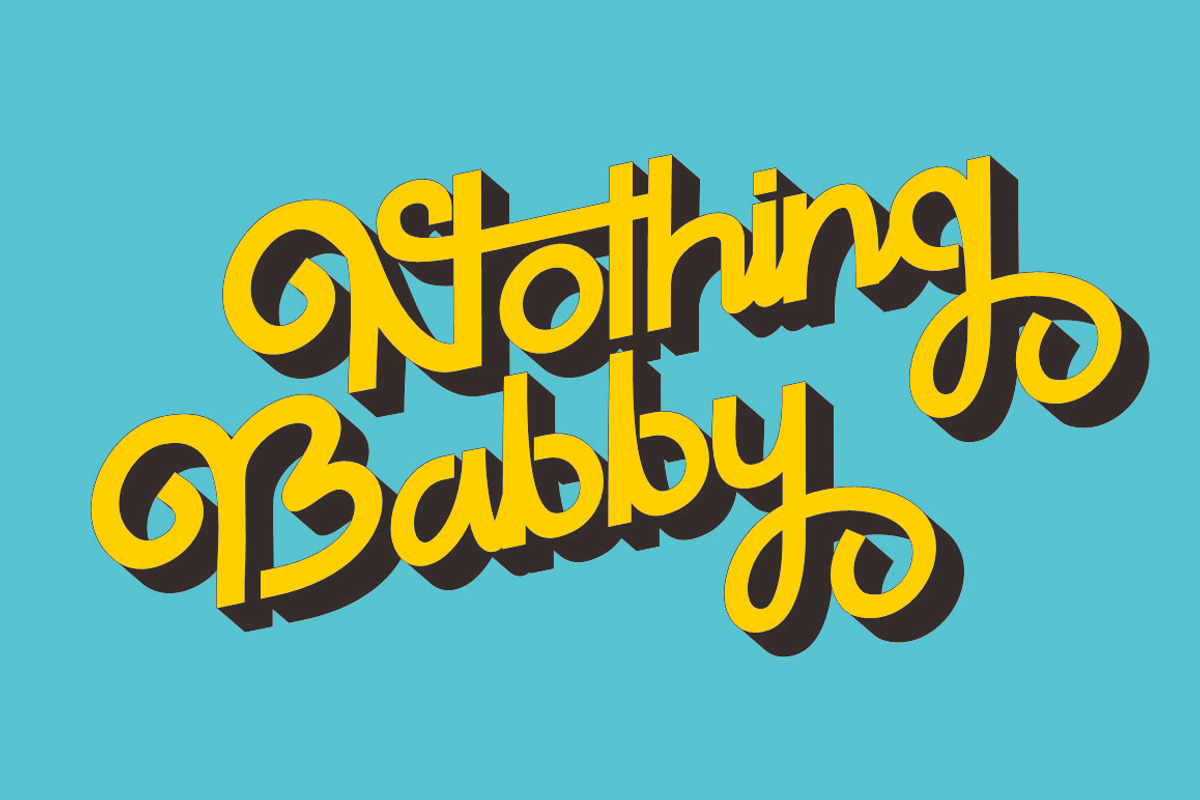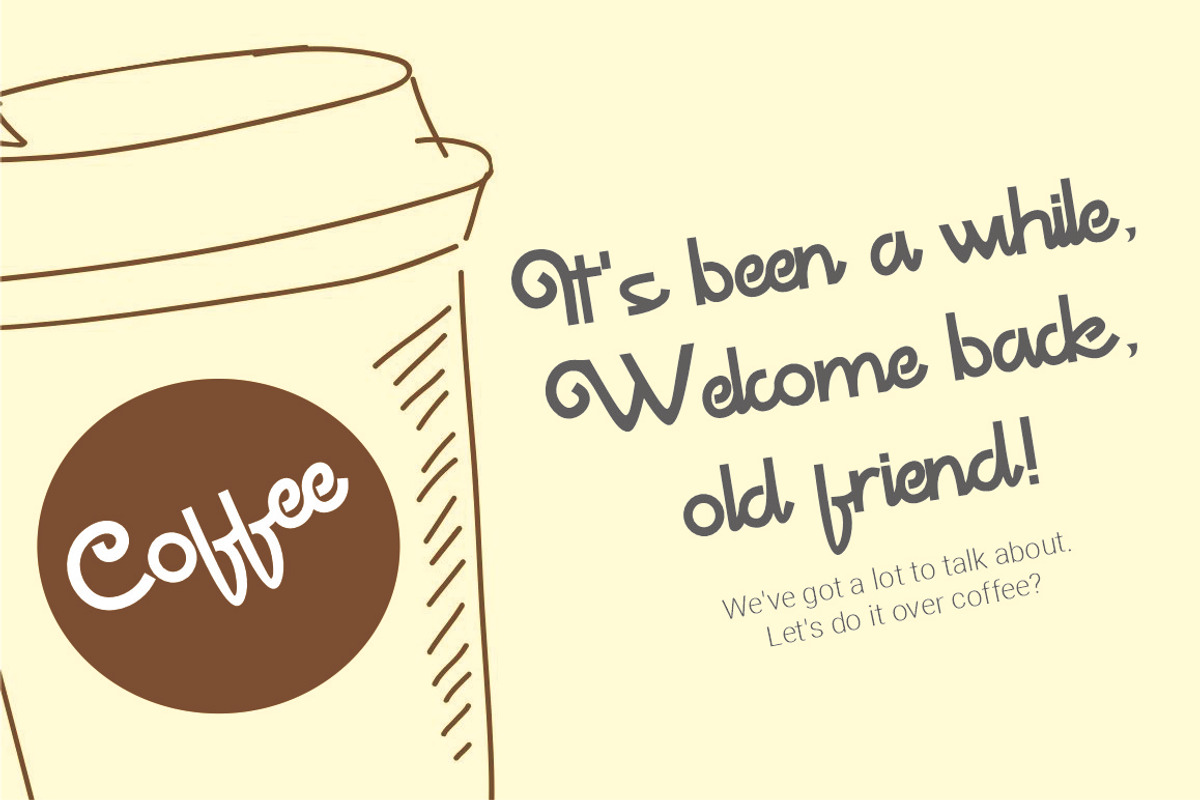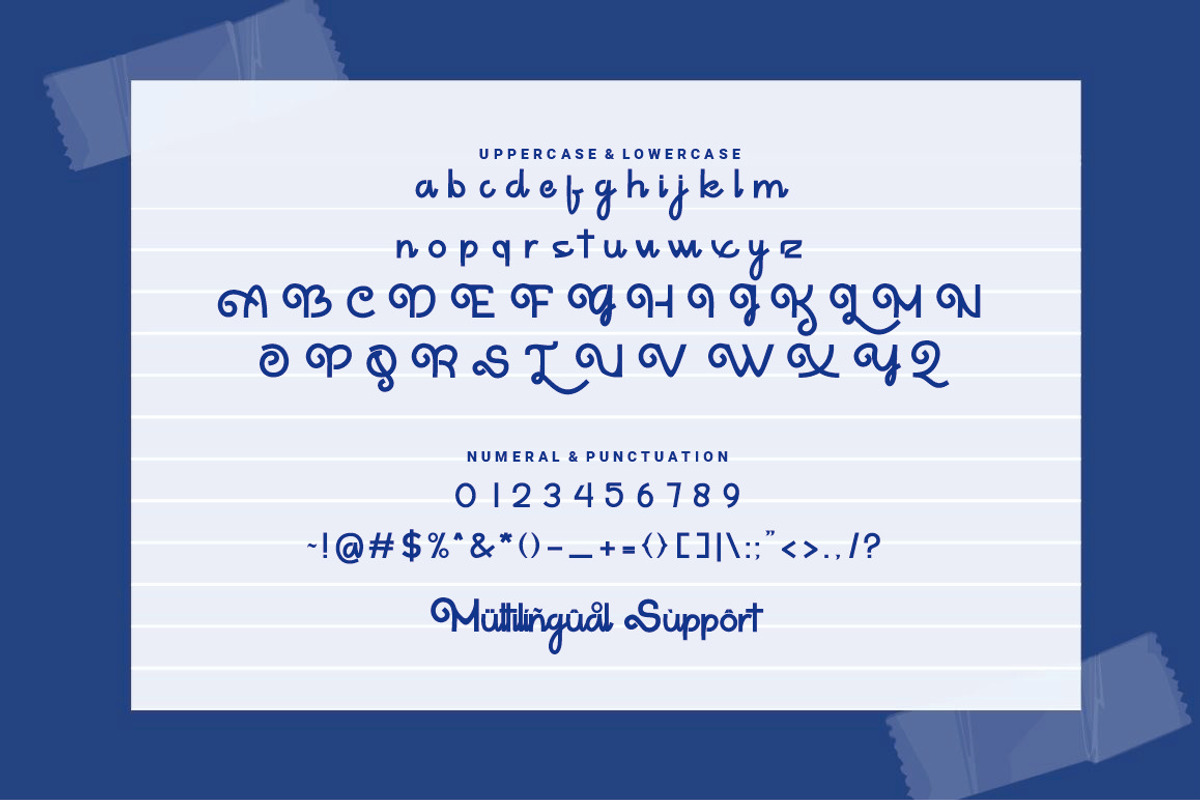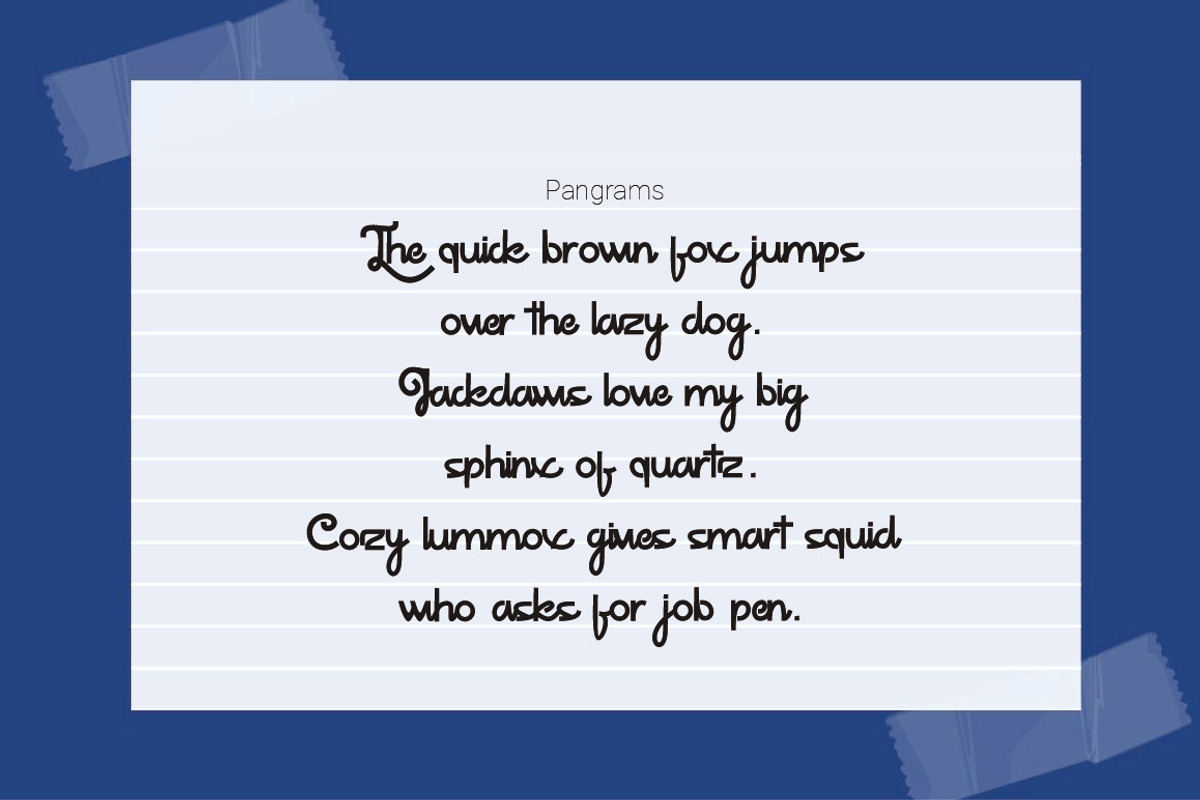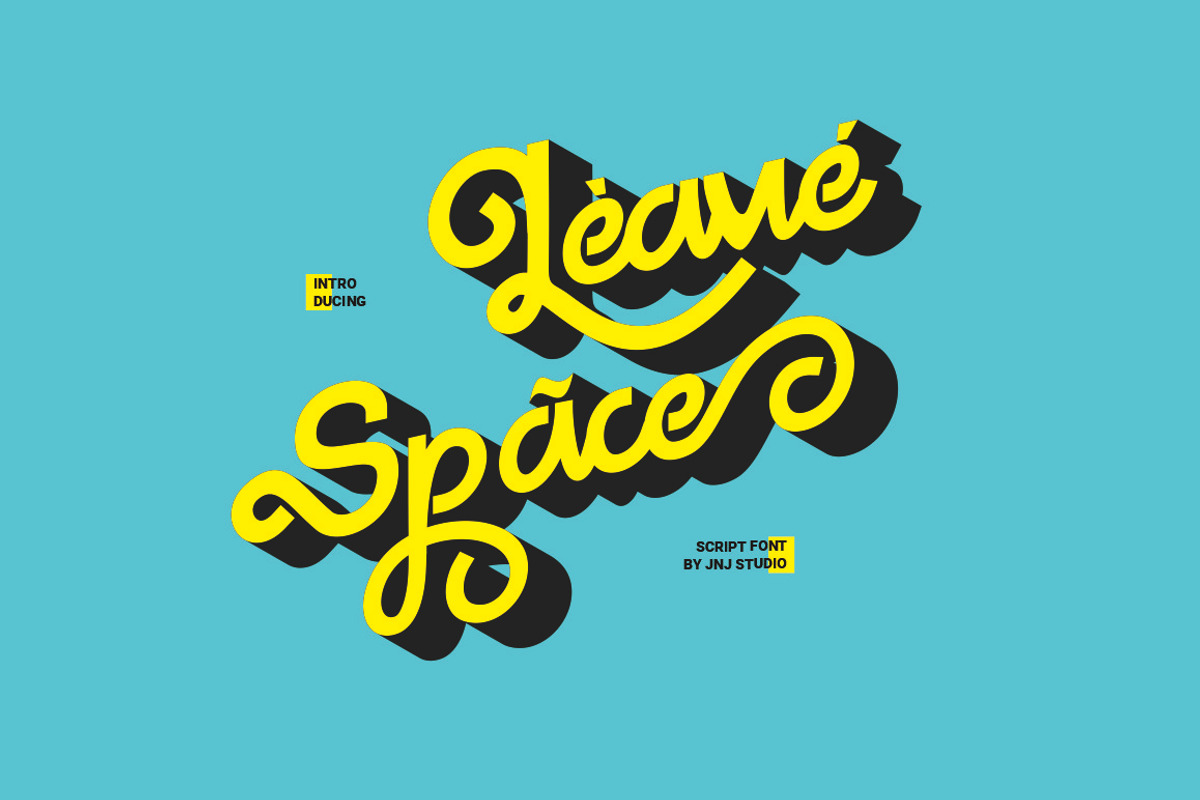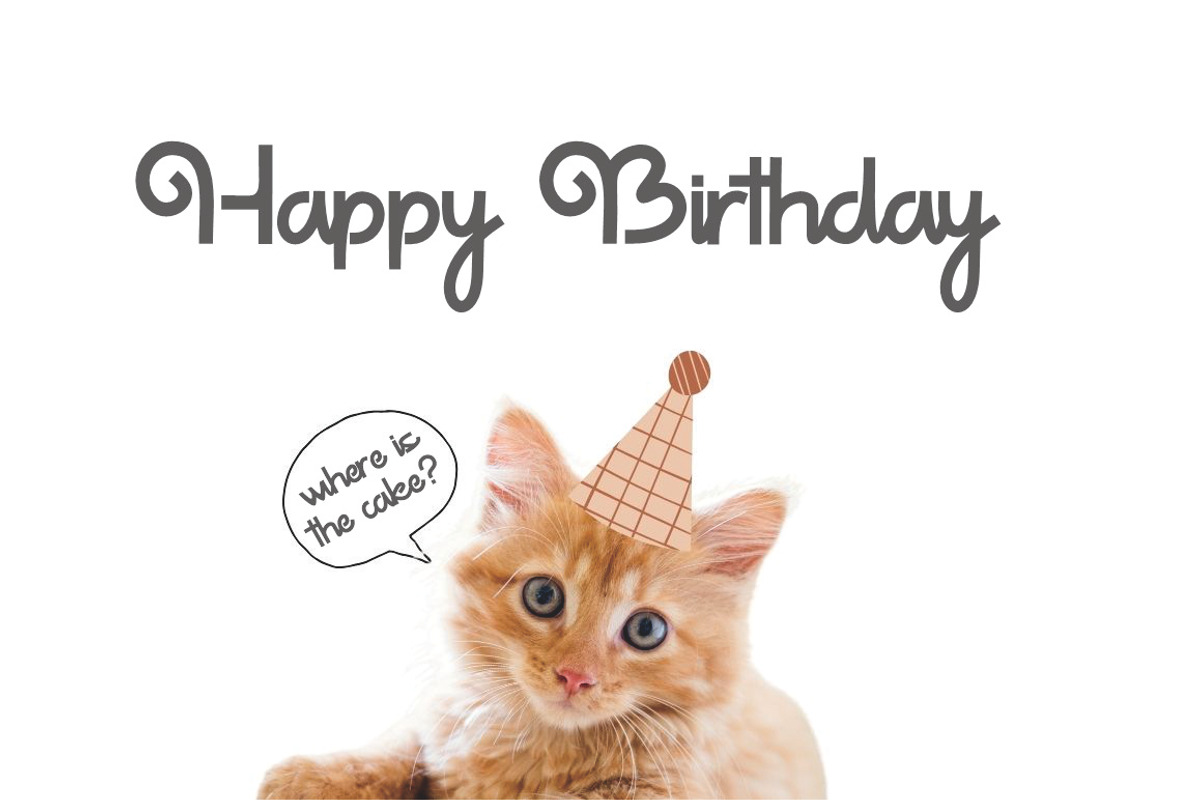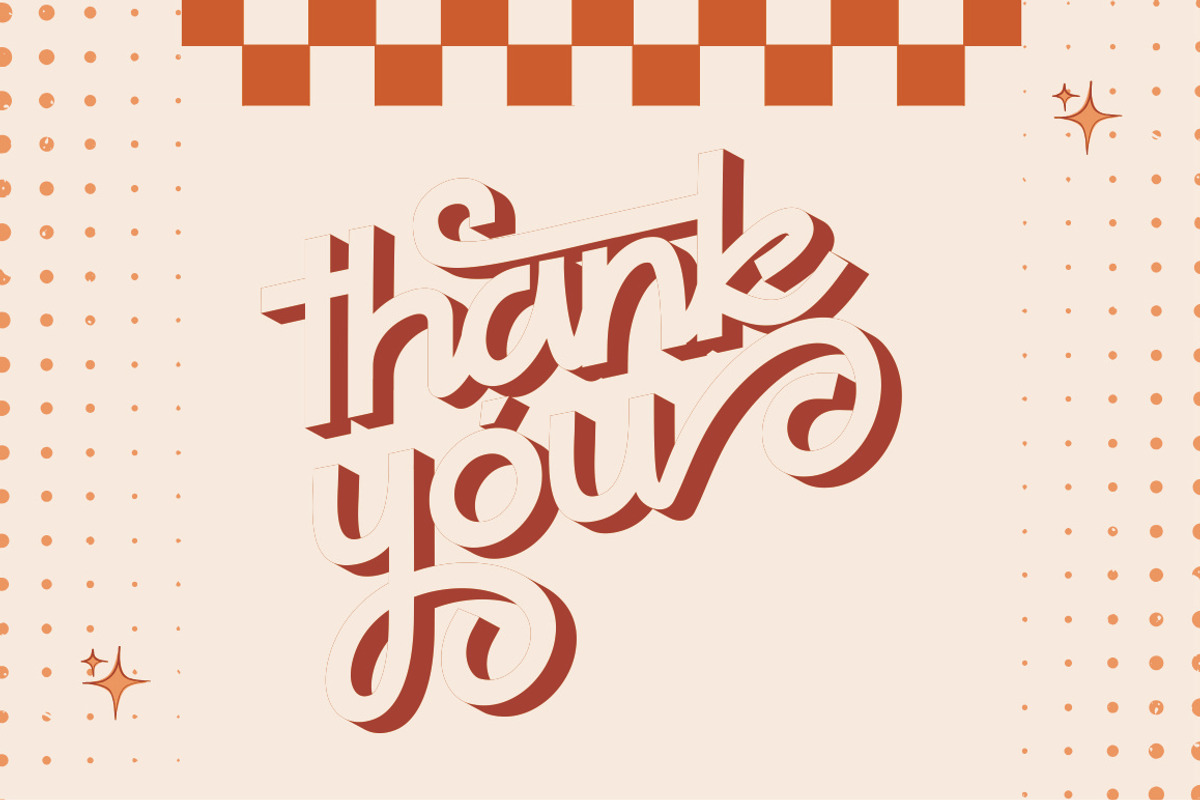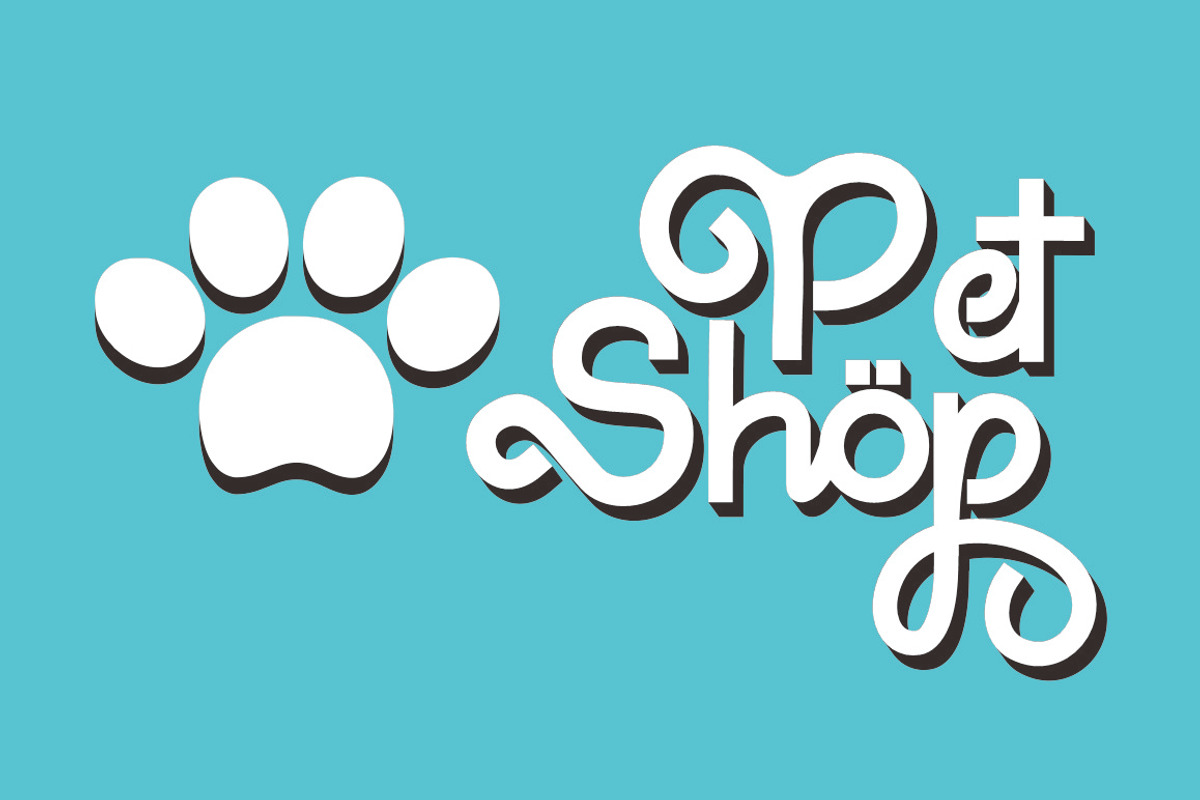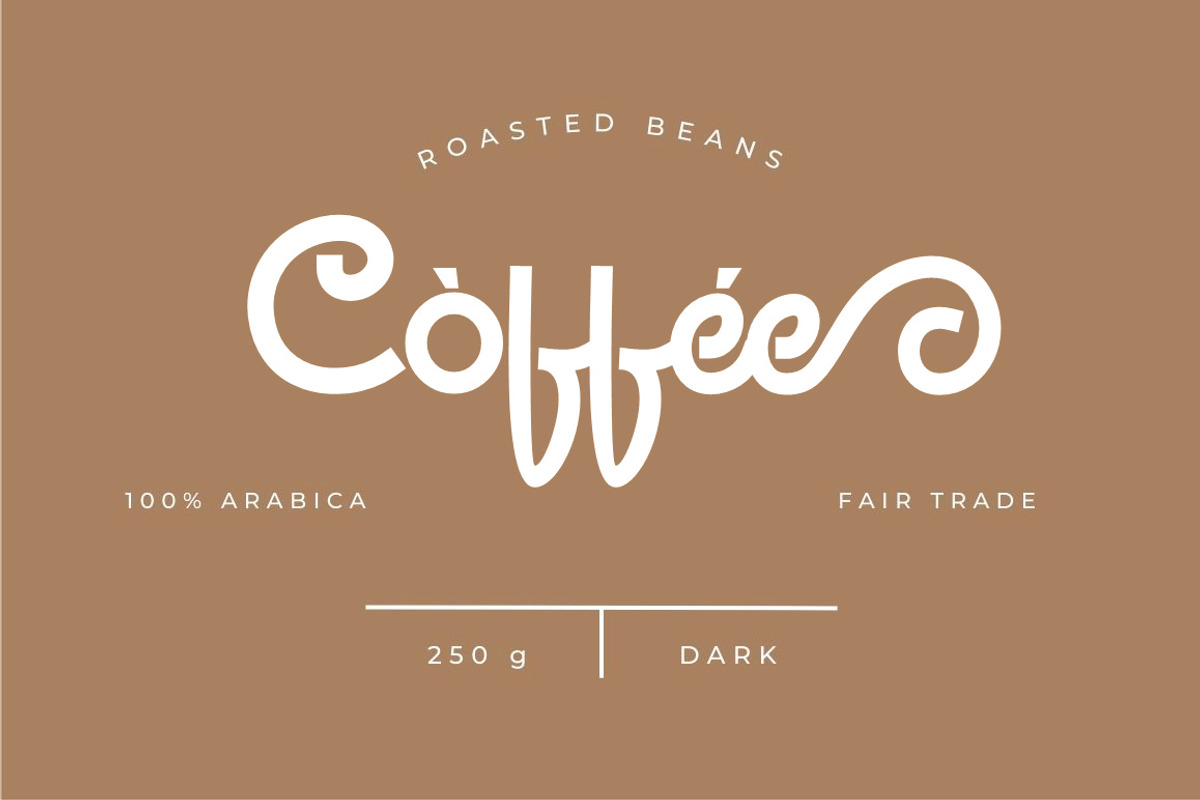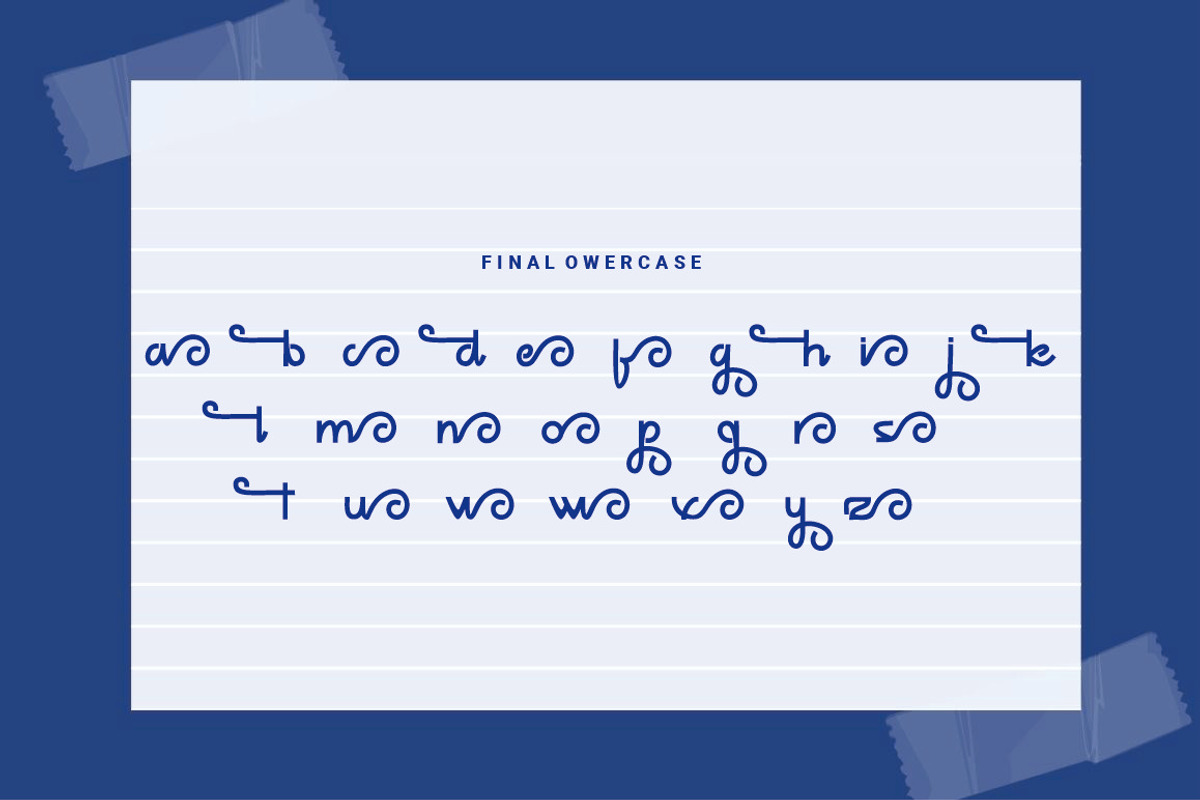
Leave Space
Leave Space is a sophisticated and flowing script font that exudes elegance and charm. With its smooth, connected strokes and graceful curves, this font captures the essence of handwritten calligraphy while maintaining a modern and stylish appeal.
Perfect for branding, invitations, logos, and elegant typography projects, Leave Space offers a balance between delicacy and readability. Its well-spaced letters create a sense of openness, making it ideal for designs that require a touch of luxury and warmth.
Whether you're crafting wedding invitations, fashion labels, or personal branding materials, Leave Space adds a refined and artistic touch to your text. Let your words flow beautifully with the elegance of Leave Space.
- Final Lowercase